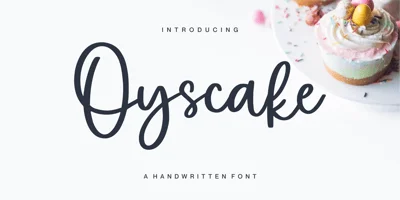
Oyscake Font
Oyscake Font is perfect for playful bakery branding, whimsical children's products, fun party invitations, quirky café identity, creative toy packaging, joyful celebration materials, cheerful birthday campaigns, sweet treat marketing, imaginative craft projects, and delightful applications that celebrate childlike wonder and the pure joy of simple pleasures.
What makes Oyscake Font truly exciting is its infectious blend of playful energy and sweet innocence that captures the unbridled joy and carefree spirit of childhood celebrations and happy moments. This exceptional typeface embodies the essence of pure fun with its bouncy letterforms and cheerful character that convey both playful authenticity and heartwarming sweetness. The font's joyful personality and celebration-focused design make it perfect for brands seeking to communicate happiness, innocence, and the magical ability to transform ordinary moments into extraordinary celebrations through genuine fun and childlike wonder.
The Oyscake Font family includes multiple weights and styles: Light, Regular, Bold, Bouncy, and Celebration variations designed for maximum joy impact. Each family member maintains the distinctive playful character while offering flexibility for diverse celebration applications and fun branding systems. The comprehensive character set supports joyful typography needs and playful design elements, making it suitable for international celebration communications.
When you choose Oyscake Font, you're selecting a typography party that delivers authentic joy and celebration excellence to every delightful project. This cheerful typeface excels in applications where happiness and playfulness are essential ingredients, delivering exceptional fun appeal while maintaining sweet authenticity. Whether you're designing party brands, children's products, celebration campaigns, or joyful marketing materials, this font provides the playful energy and sweet celebration that resonates with audiences who appreciate pure fun, childlike wonder, and the beautiful simplicity of genuine happiness and joyful moments shared with loved ones.